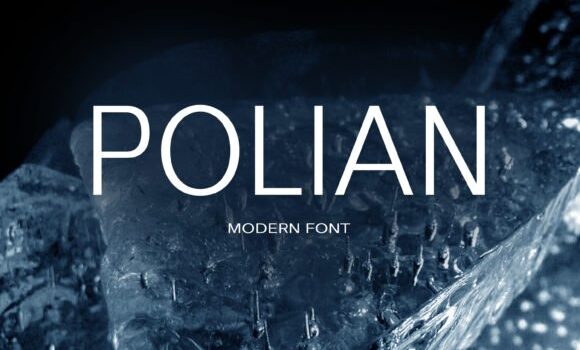
polian
Polian Font – Free Download Introduction to Polian Font Polian is a sweet and simple sans serif font with a unique style. 📸 Preview Gallery 1 image 📌 Product Name Polian Font 👤 Author DmDesignsStoreArt 📂 Category Explore ⬇️ Download